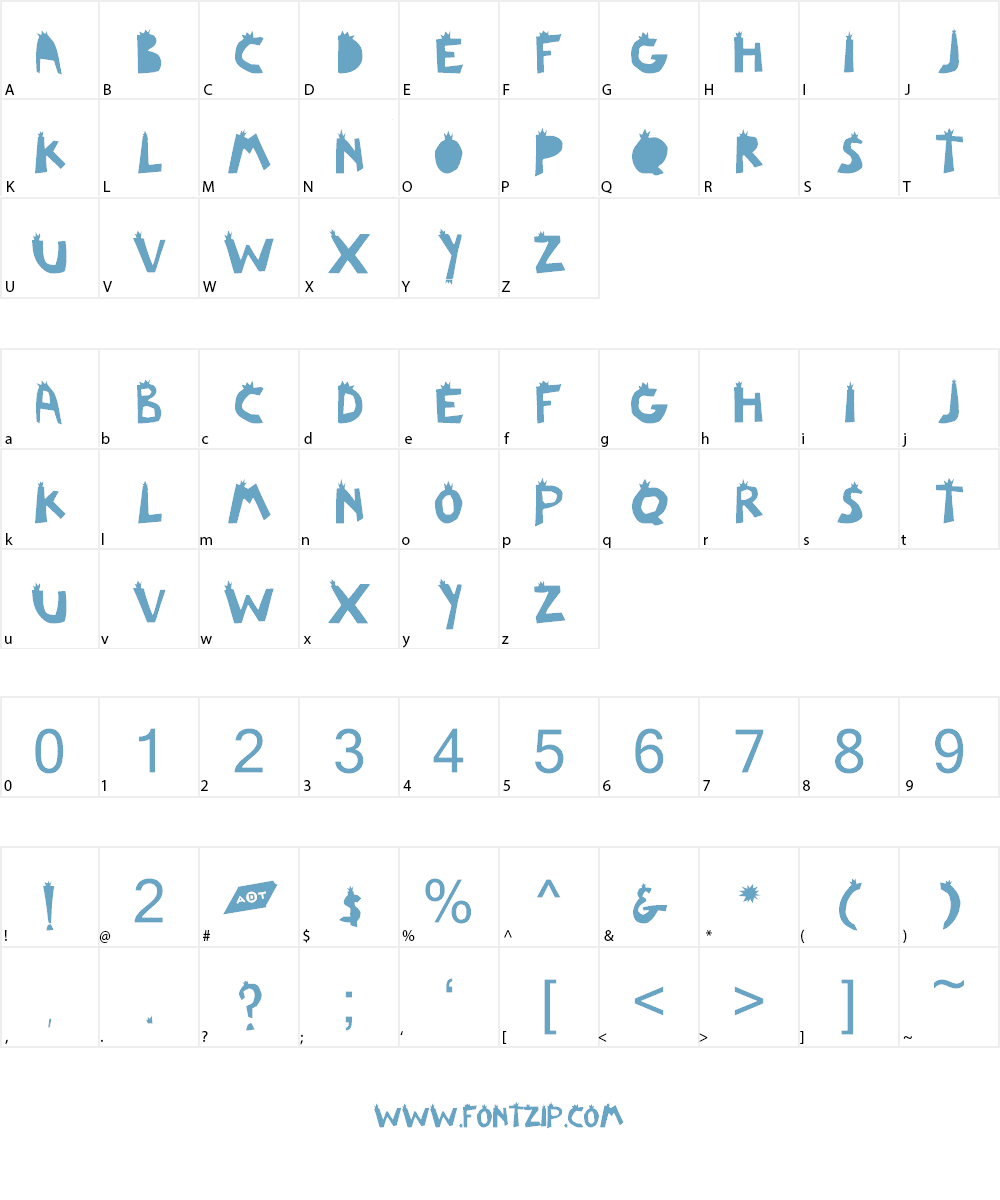
The name should have been Le Joël, but old fonts and accents don't mix well. Don't know if that's a crown on top or if Joël had a tuft of hair sticking up....